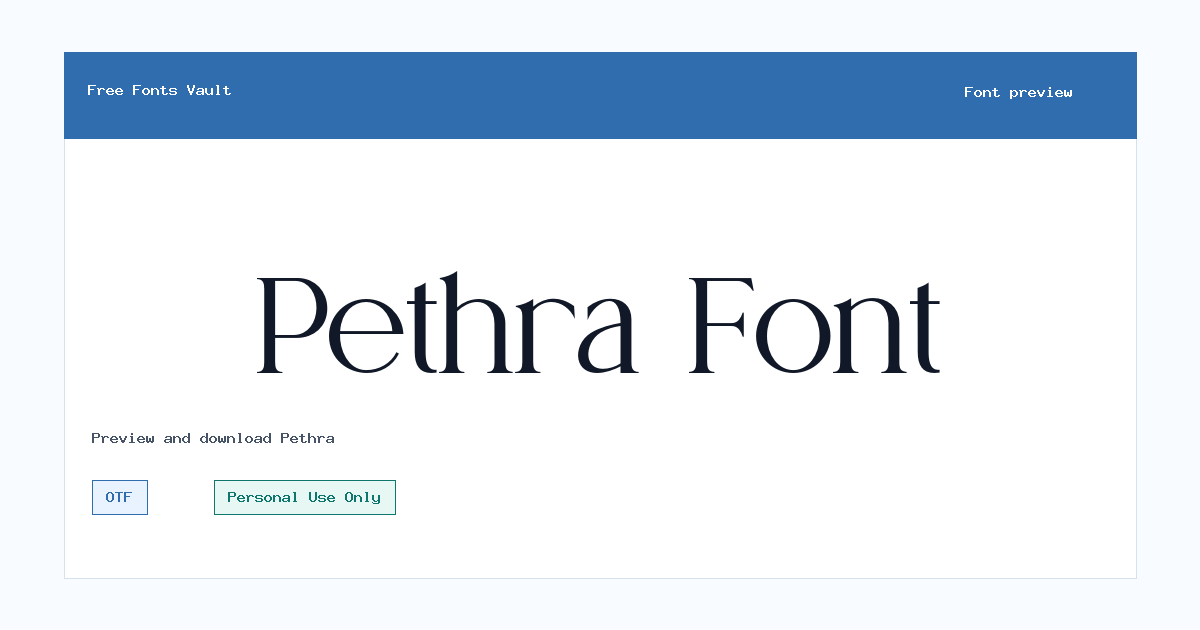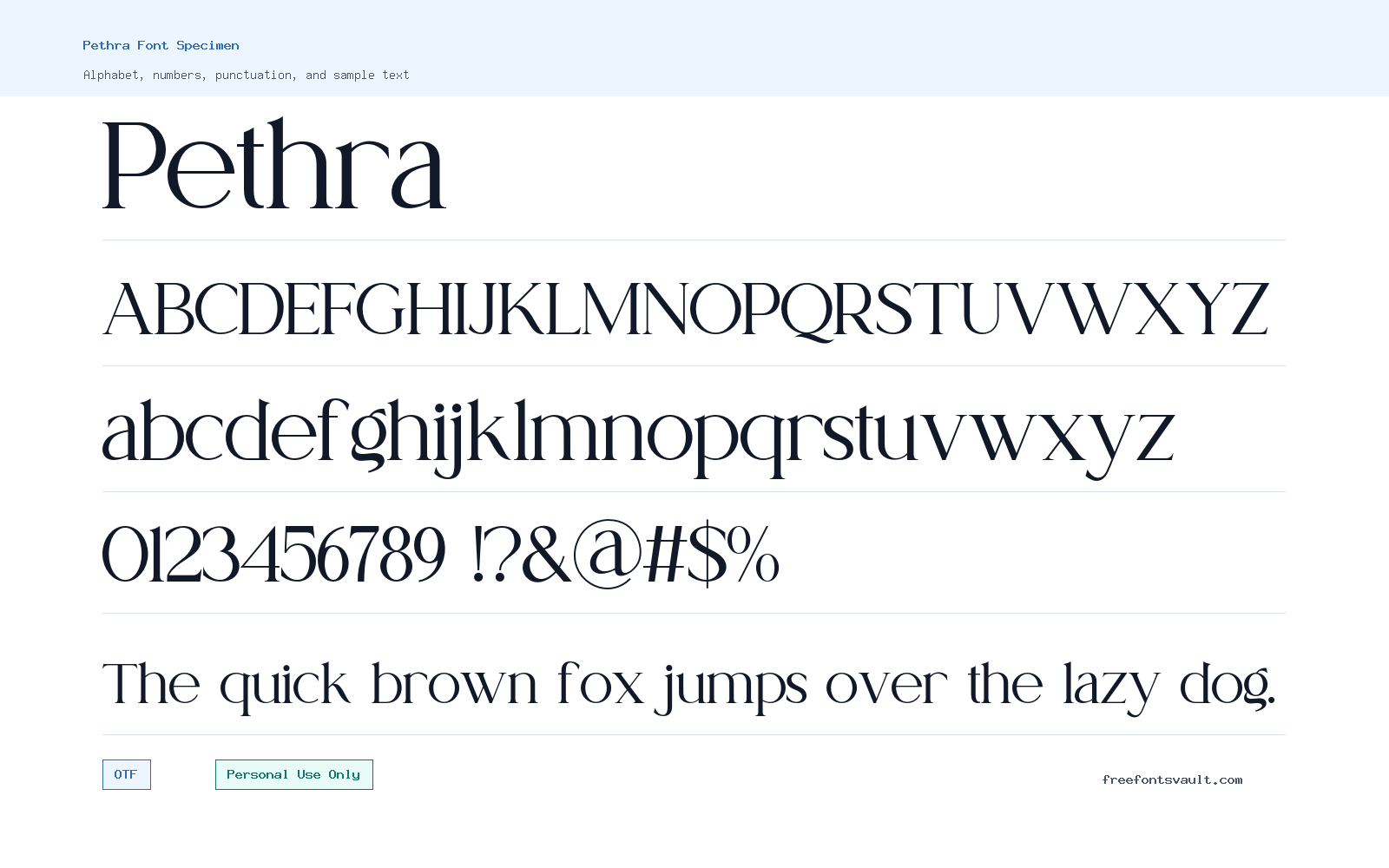
Pethra
Pethra font preview showing the family name
Pethra Font
Pethra font specimen showing alphabet, numbers, and sample text
Pethra font.
Pethra is a personal-use serif font from ErmediaStudio, offered as a regular OTF font file. It is a good choice to test when you need a refined serif look for titles, short text, and visual layouts.
About Pethra Font
Pethra is listed as a serif font, so it is best approached as a display-friendly typeface rather than an all-purpose body text font. Use the preview tool to check how its letter shapes behave in your own words, especially if you plan to use it for names, headings, invitations, labels, social graphics, or decorative text. Serif fonts can vary a lot in contrast, spacing, and small-size clarity, so the most useful test is not just the alphabet but the exact phrase you want to design.
• Serif font style suited to short, polished text settings
• Useful for previewing headings, names, labels, and personal design drafts
• Typography previews where a serif look is needed
Is Pethra good for long paragraphs?
Test it carefully first. With a single regular serif style listed, it is safer for headings and short text unless the preview stays clear at paragraph sizes.